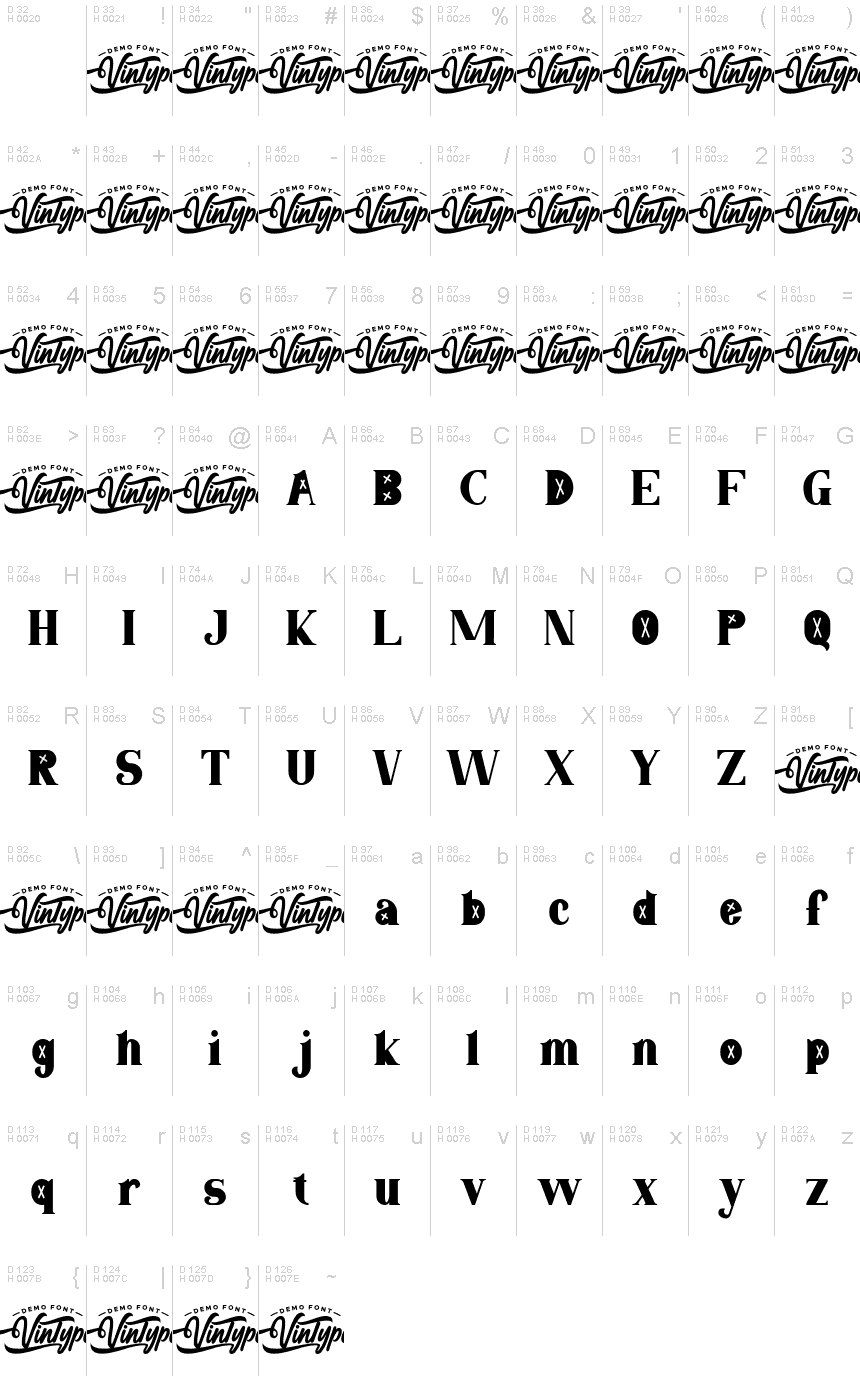
Start Again, a bold display font designed by VinType, is a captivating choice for projects that require a powerful and attention-grabbing typographic presence. With its strong lines and distinct shapes, this font exudes confidence and versatility.
Ideal for branding campaigns, logo designs, packaging, and headlines, Start Again effortlessly commands attention in both print and digital mediums. Its bold weight ensures legibility even at smaller sizes, making it perfect for posters, banners, and website headings. Let this dynamic font breathe new life into your creative endeavors as you embrace the art of starting again.